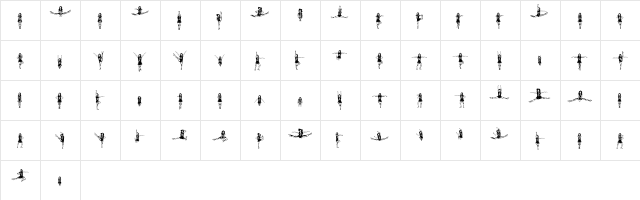
Cheerleaders Regular Font Preview
Cheerleaders Regular
Cheerleaders Regular Font Details
Design Context for Cheerleaders Typeface
Cheerleaders is a composed and adaptable typeface that performs quietly and consistently across a wide range of design contexts.